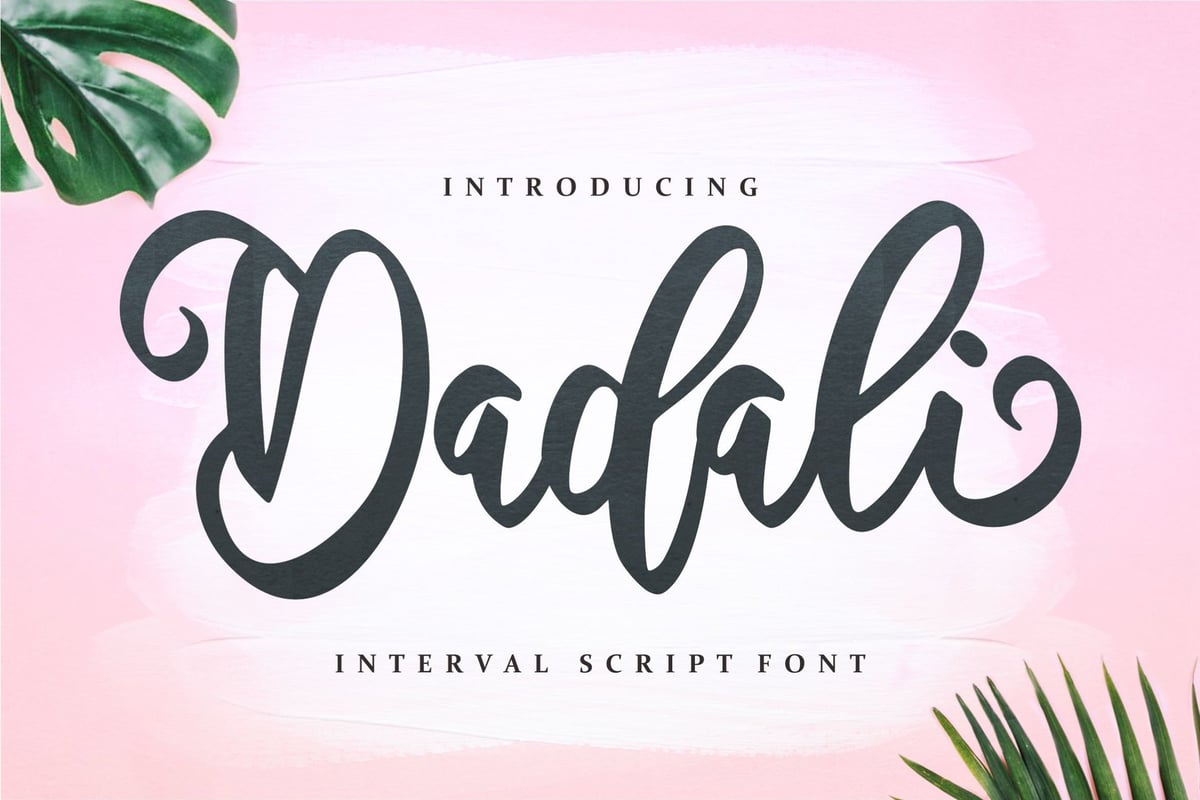
Free Dadali - Interval Script Font
Dadali is a stunning bold script typeface built for beautiful invitations, branding, and beyond.
This elegant interval script font brings a warm, handcrafted personality to any design project. Whether you're working on greeting cards, business cards, quotes, posters, or branding materials, Dadali delivers a gorgeous, flowing style that stands out.